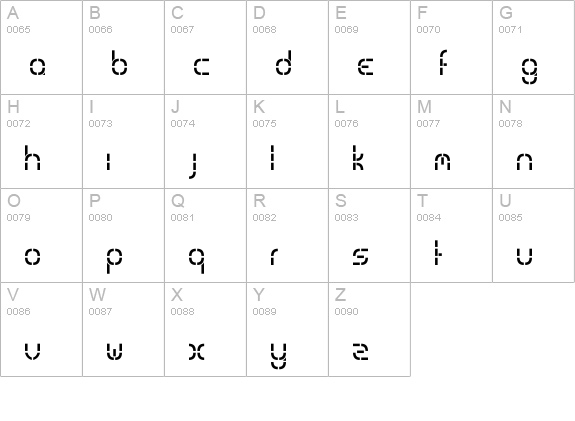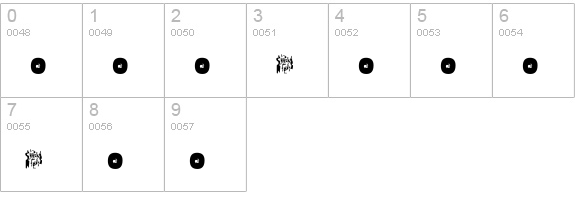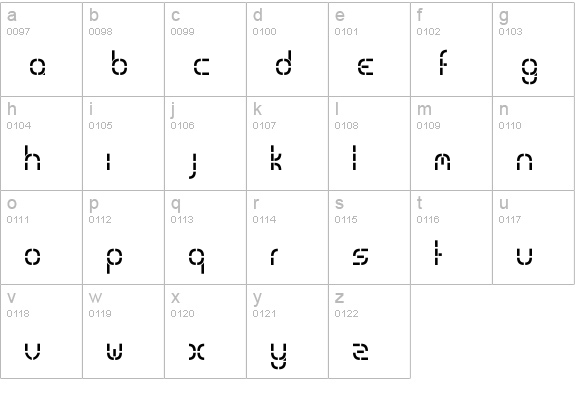
special k. Font Details
special k. is a free for personal use font in the Modern > Stencil category. It has been downloaded 12 times and is available for Windows, Mac and Linux.
Introducing Special K, a captivating and versatile font that is sure to leave a lasting impression. This unique typeface combines smooth curves with a touch of playfulness, making it perfect for a wide range of design projects. Special K is not just any ordinary font; it is a font that embodies creativity and innovation. Its modern yet timeless aesthetic will effortlessly elevate your designs, whether it be for branding, logos, posters, or social media graphics. Its versatility allows it to adapt to any style or theme, making it a go-to choice for designers worldwide. The best part? Special K is freely available to download at FontsMarket.com. Yes, you read that right! This exceptional font can be yours without spending a dime. We believe that great design should be accessible to all, and that's why we are thrilled to offer this font for free. So, why wait? Unleash your creativity and download Special K today. With its wide range of characters and glyphs, you'll have endless possibilities at your fingertips. Whether you're a professional designer or an aspiring artist, Special K will help you bring your visions to life. Get ready to make a statement and leave a lasting impression with this extraordinary font. Remember, Special K is waiting for you at FontsMarket.com, where you can freely download and start using it immediately. Experience the power of great design without any limitations. Download Special K now and let your creativity soar to new heights.